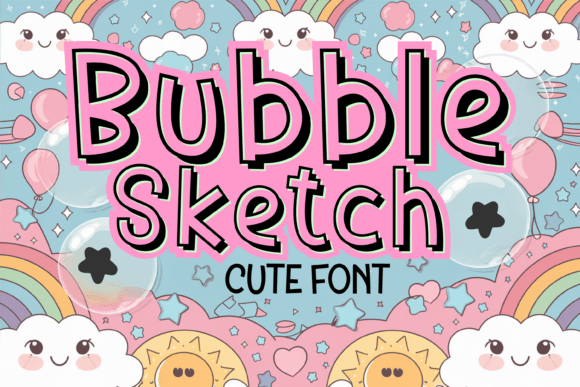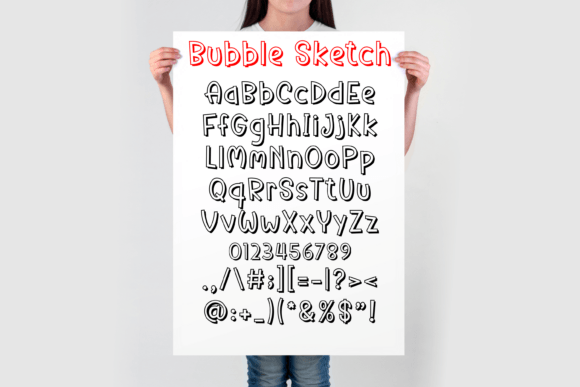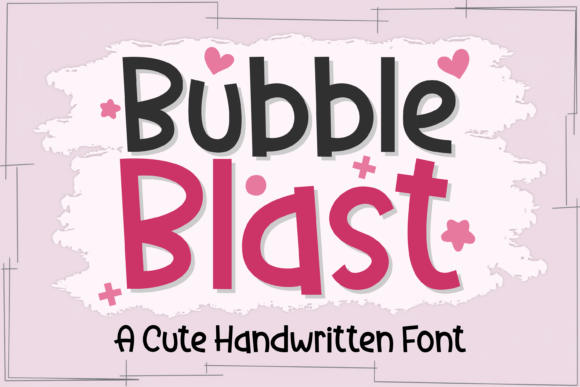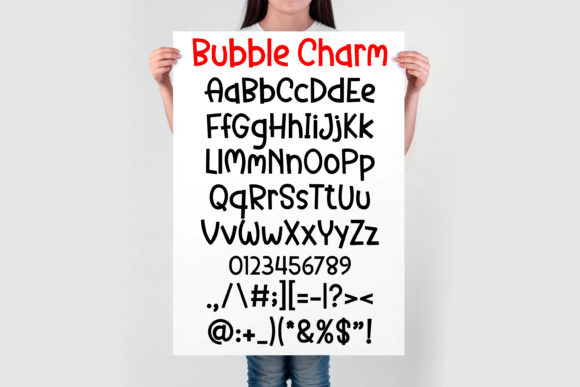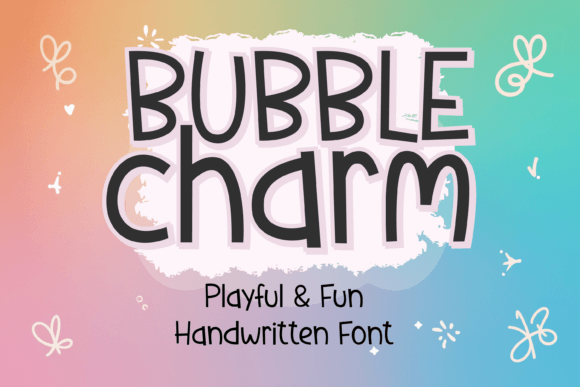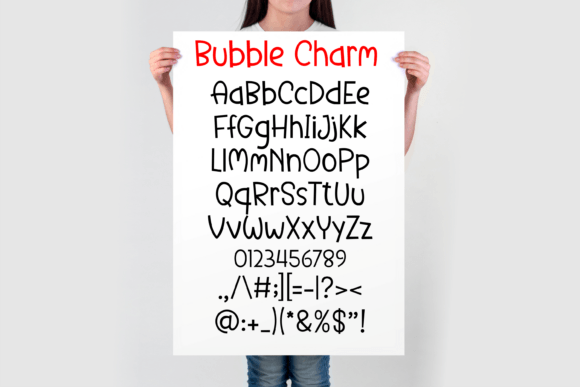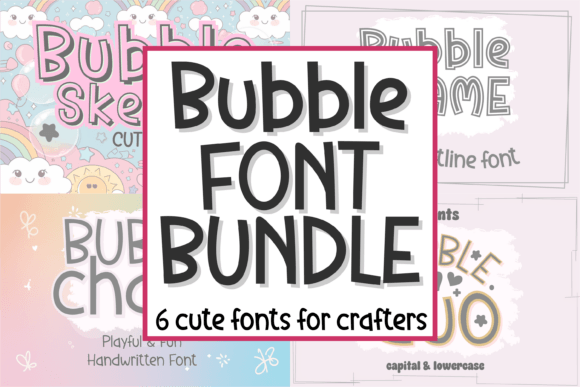
Bubble Bliss Font Bundle – A Playful & Cute Handwritten Font Collection
Are you tired of using the same old fonts in your creative projects? Do you want to add a touch of fun and whimsy to your designs? Look no further than the Bubble Bliss Font Bundle, a delightful collection of bubbly, hand-drawn fonts that are perfect for crafters, designers, and makers of all kinds.
What is the Bubble Bliss Font Bundle?
The Bubble Bliss Font Bundle is a carefully curated collection of playful, handwritten fonts that are designed to bring a smile to your face. Each font in the bundle is hand-drawn with love and attention to detail, featuring rounded, bubbly edges and charming details that will make your designs stand out.
Whether you’re a Cricut, Silhouette, Procreate, Canva, or Photoshop user, this font bundle is perfect for anyone looking to add a touch of personality to their creative projects. From stickers and t-shirts to greeting cards, planner pages, and sublimation projects, the Bubble Bliss Font Bundle has everything you need to create modern, fun designs or soft, playful looks.
Key Features of the Bubble Bliss Font Bundle
- Playful and Whimsical: Each font in the bundle is designed to be playful and whimsical, adding a touch of fun to your designs.
- Hand-Drawn: Every font is carefully hand-drawn with love and attention to detail, ensuring a unique and personal touch.
- Rounded and Bubbly Edges: The fonts feature rounded, bubbly edges that add a touch of charm to your designs.
- Charming Details: Each font includes charming details that will make your designs stand out.
What Can You Create with the Bubble Bliss Font Bundle?
The possibilities are endless with the Bubble Bliss Font Bundle! Here are just a few ideas to get you started:
- Stickers: Create fun and playful stickers for kids, or use them to add a personal touch to your planners and journals.
- T-Shirts: Design custom t-shirts for kids and adults alike, using the Bubble Bliss fonts to add a touch of whimsy.
- Greeting Cards: Create beautiful, one-of-a-kind greeting cards for special occasions, using the fonts to add a personal touch.
- Planner Pages: Use the fonts to create custom planner pages that are both functional and fun.
- Sublimation Projects: Create stunning sublimation projects, such as mugs, phone cases, and tote bags, using the Bubble Bliss fonts.
Why Choose the Bubble Bliss Font Bundle?
So why choose the Bubble Bliss Font Bundle over other font collections? Here are just a few reasons:
- Unique and Exclusive: The Bubble Bliss Font Bundle is a unique and exclusive collection of fonts that will set your designs apart.
- High-Quality: Each font in the bundle is high-quality and carefully crafted to ensure a professional finish.
| Font Name | Bubble Bundle Font |
In conclusion, the Bubble Bliss Font Bundle is a must-have for designers and crafters looking to add a touch of fun and whimsy to their creative projects. With its playful, hand-drawn fonts and charming details, this bundle is perfect for anyone looking to create modern, fun designs or soft, playful looks. So why wait? Get your hands on the Bubble Bliss Font Bundle today and start creating!